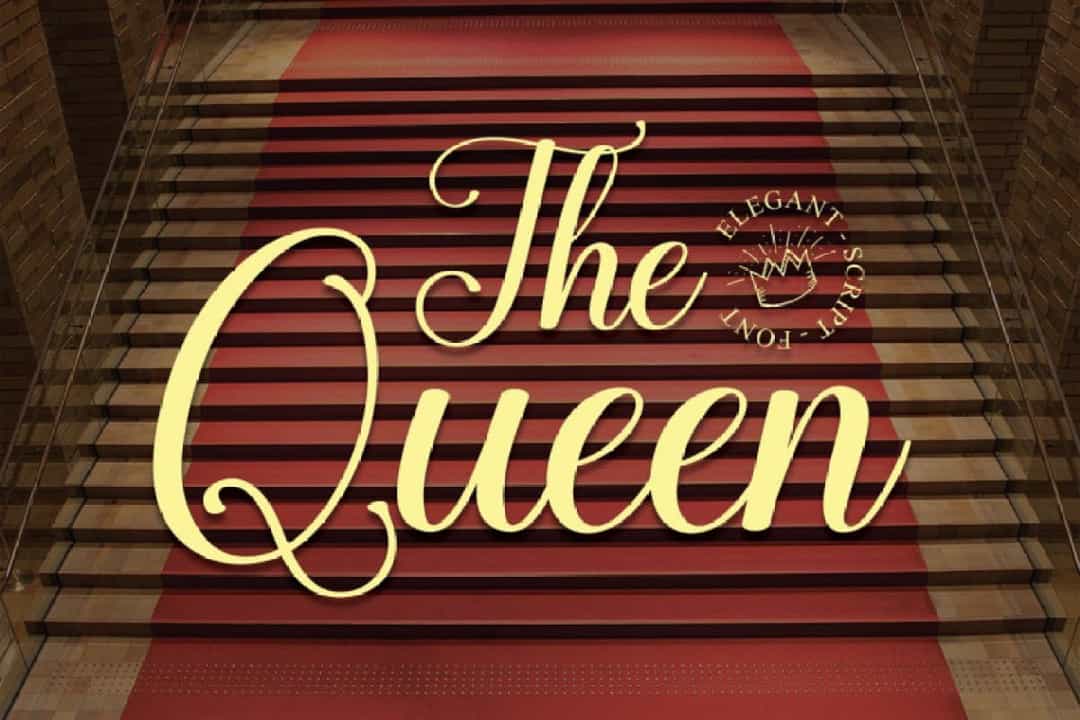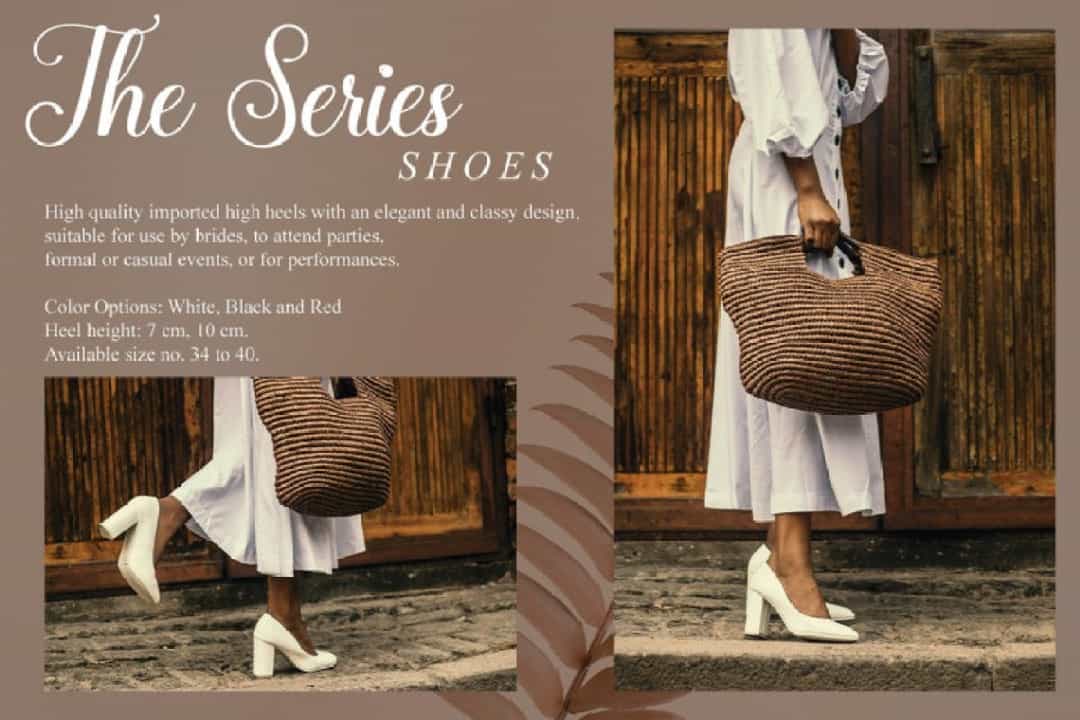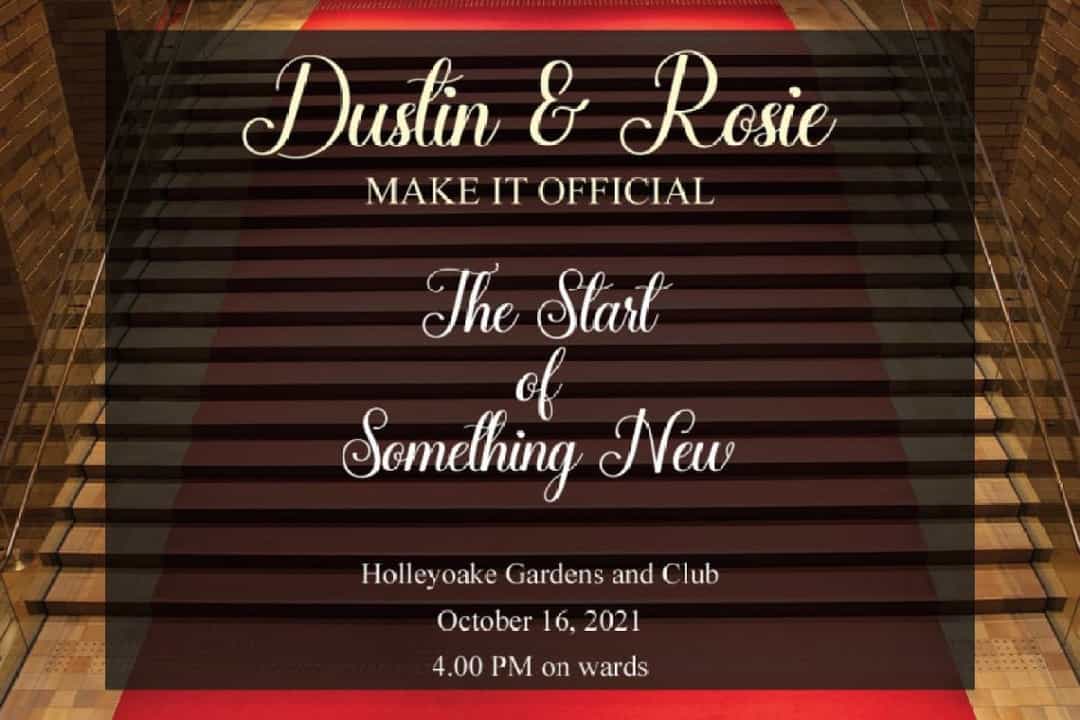
The Queen is a stylish script calligraphy font with intricate detail. Perfect for use across a range of subjects and occasions, The Queen adds vibrancy and depth to any typeface in your font library.